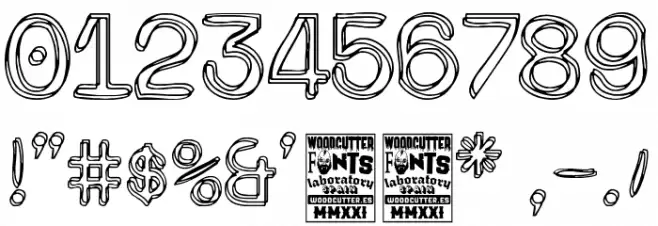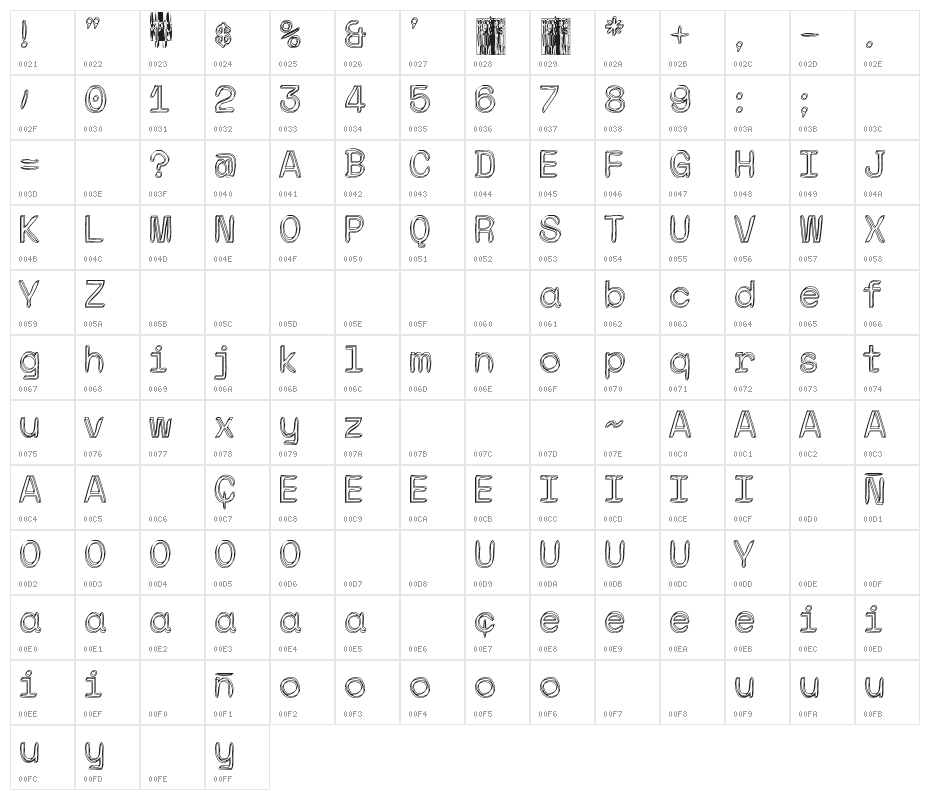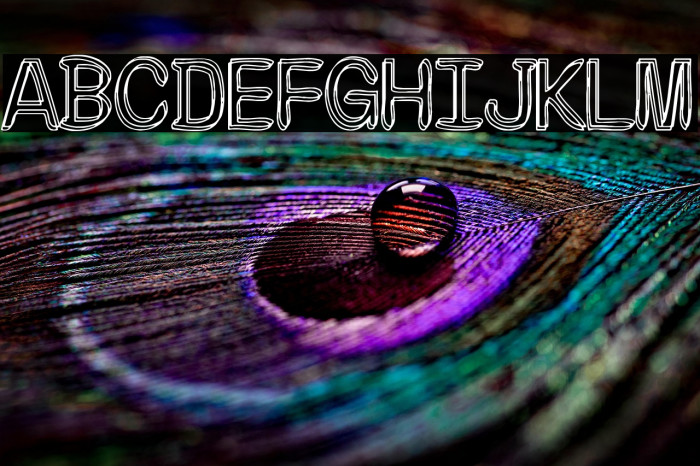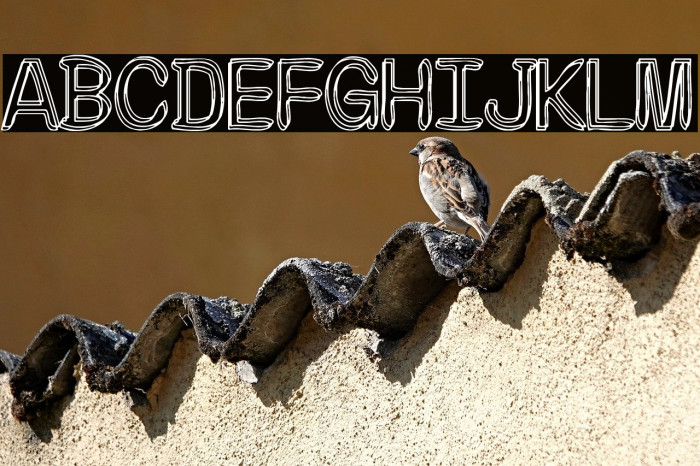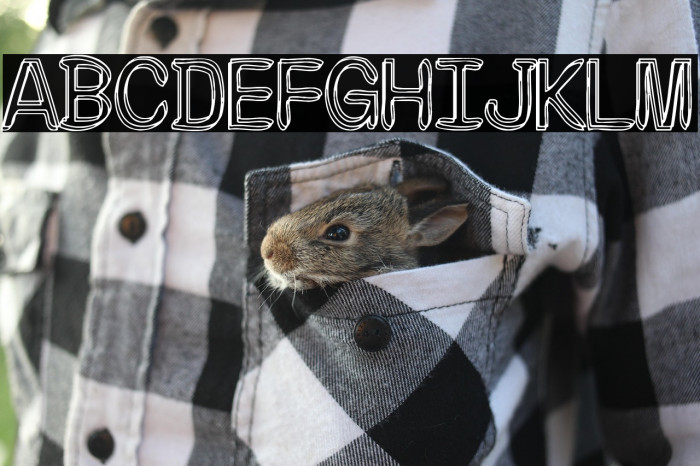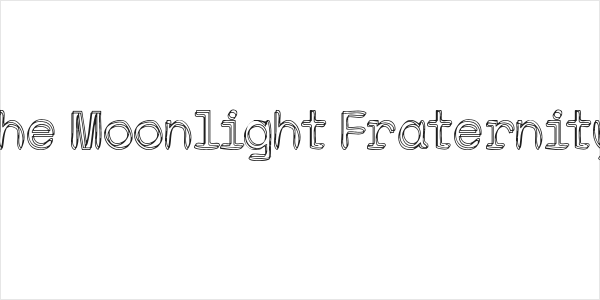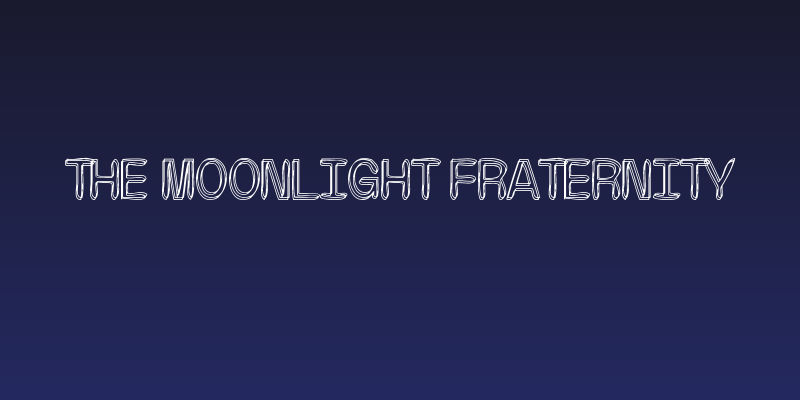
The Moonlight Fraternity Font
The Moonlight Fraternity Description
This font features a playful and decorative style with a hand-drawn appearance. Each character is outlined with a double line, creating a shadow effect that adds depth and dimension. The letters are slightly irregular, enhancing the whimsical and informal feel. The uppercase and lowercase letters maintain a consistent style, with rounded edges and a casual flow. Numbers and special characters follow the same design principles, ensuring a cohesive look across all glyphs. This font is ideal for projects that require a fun and engaging aesthetic.